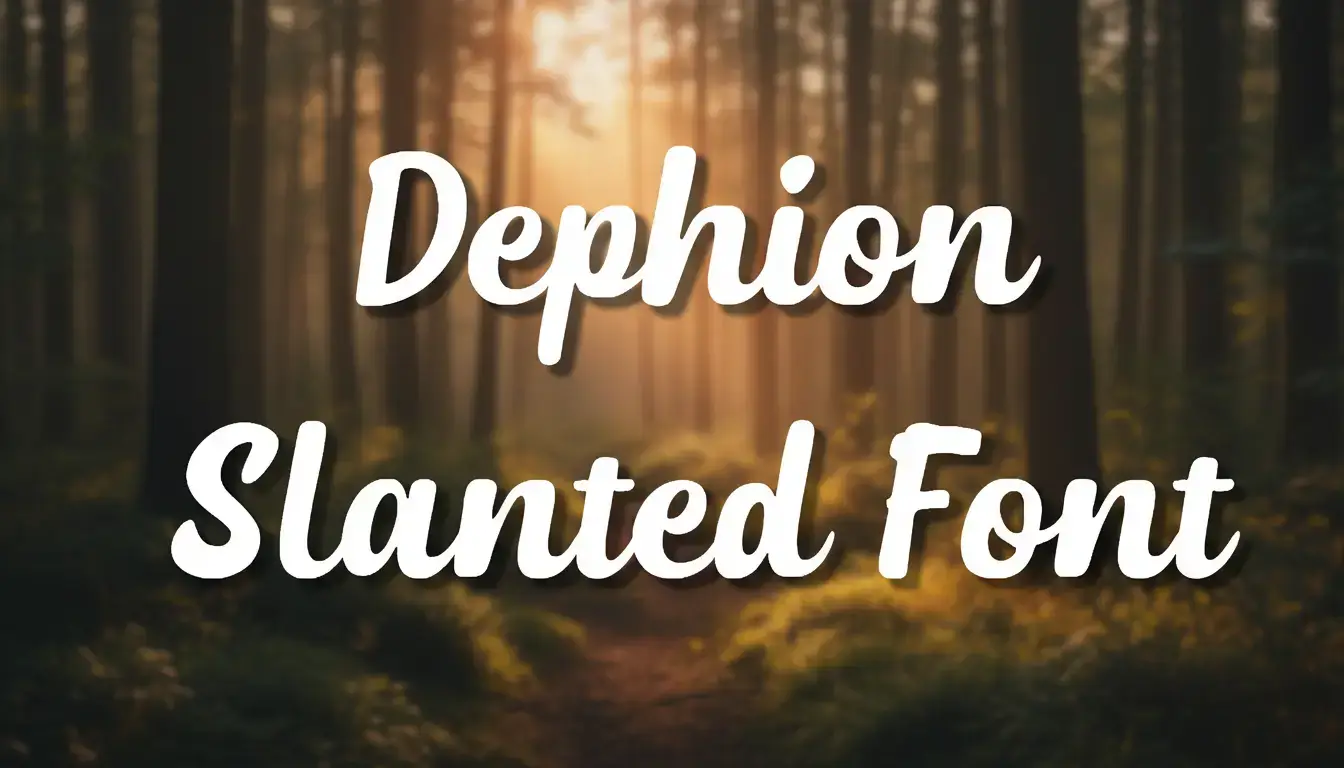
Dephion Slanted Font
Dephion Slanted Font Preview
Dephion Slanted
Dephion Slanted is a script font designed by Locomotype. Its flowing, pen-made letters give names and short phrases a personal, polished look. It's a free download, and you can try it with your own text in the preview above first.
What You Can Type With Dephion Slanted
Dephion Slanted covers the full alphabet in upper and lowercase, plus all ten numbers, so you can set names, dates and prices without switching fonts. Everyday marks like &, !, ? and @ are there too. There are no accented letters like é or ñ, so it's best kept to English text.
Where Dephion Slanted Works Best
Designers usually reach for fonts like Dephion Slanted when they're making wedding invitations, logos and signature-style headings. Script fonts read best in short bursts, so keep it to names, titles and one-line quotes. Skip all caps: script capitals are drawn to start a word, not to fill one.
Does Dephion Slanted support accented letters?
No. Dephion Slanted has no accented letters such as é, ñ or ü, so it's best for English text.